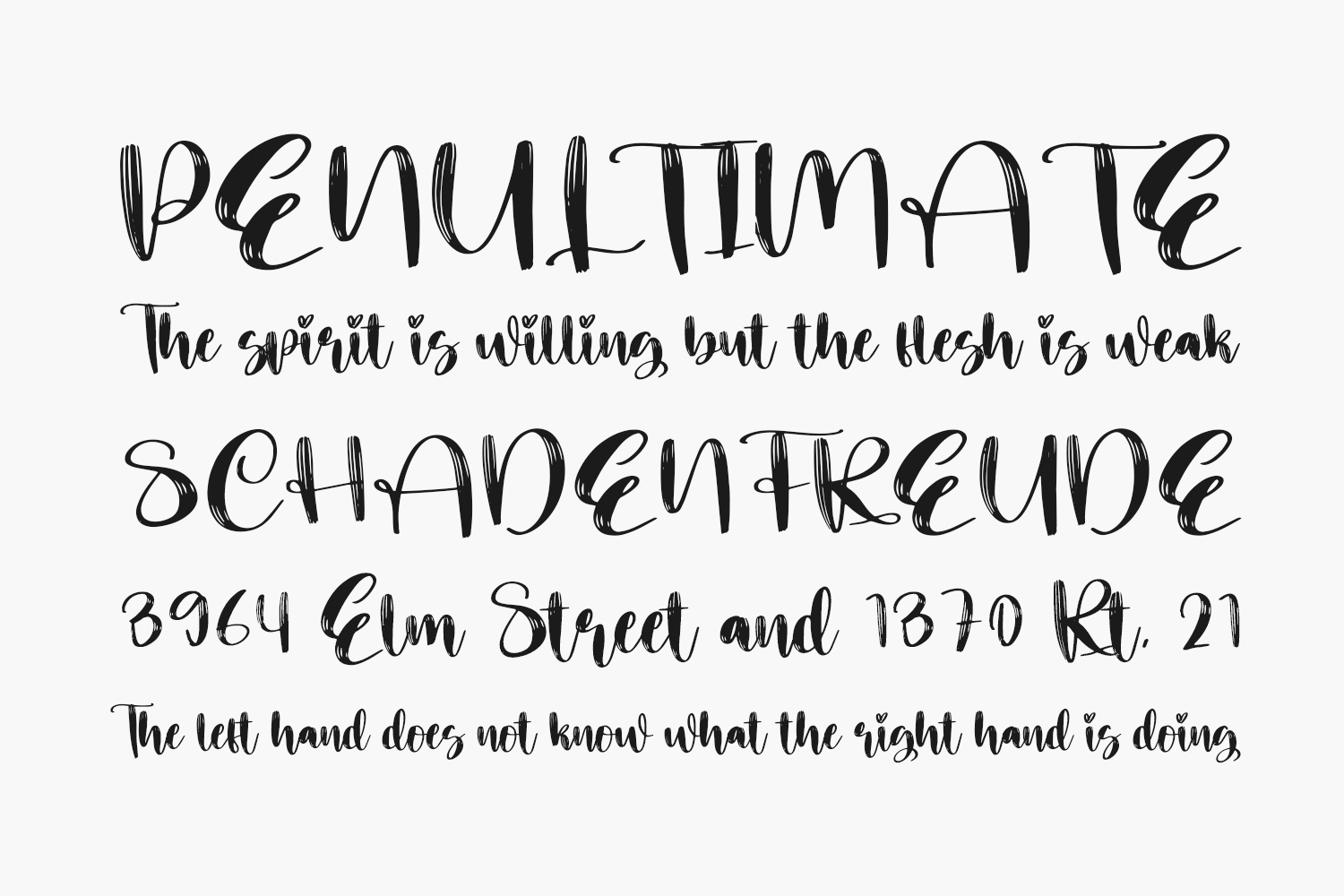
Meet Sweety Valentine Free Font, a strikingly bold and stunning handwritten brush script font. Infuse your projects with its distinctive aesthetic to elevate them to new heights of excellence. Download the font for free if you need it for personal use or purchase the full version for commercial use.
Designed by Scratchones